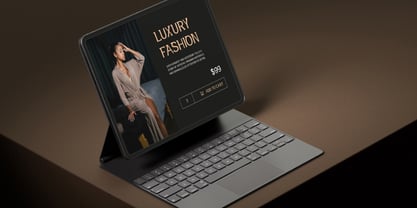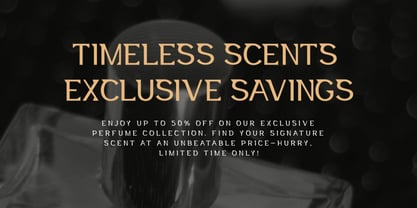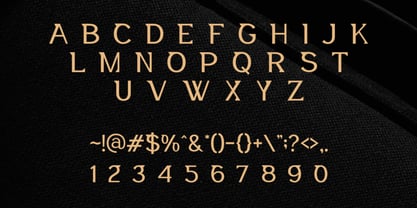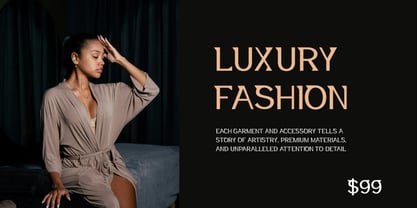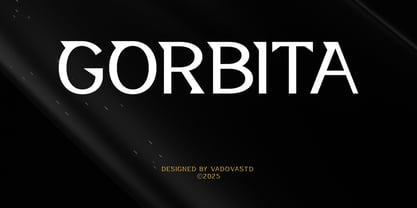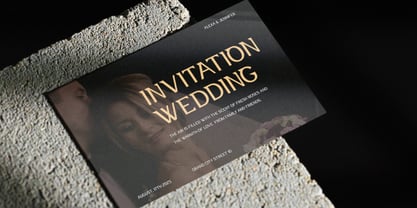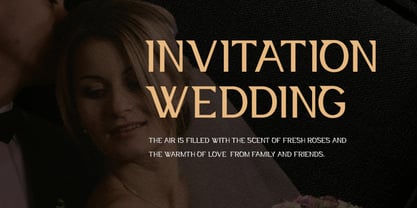
Gorbita
Gorbita is a refined display serif typeface featuring sharp decorative terminals, balanced proportions, and sophisticated letterforms inspired by timeless luxury aesthetics. The font includes uppercase characters, numerals, punctuation, and elegant stylistic details crafted to deliver a premium editorial appearance for high-end visual branding. Its bold yet graceful structure creates strong readability while maintaining an exclusive and fashionable atmosphere suitable for luxury-oriented typography.
Relevance & Use Cases is highly relevant for luxury and premium design projects that require a sophisticated and timeless visual identity. The font works effectively for fashion campaigns, perfume packaging, beauty branding, jewelry advertisements, editorial magazines, luxury hotel branding, boutique logos, cosmetic presentations, wedding stationery, premium social media graphics, artistic posters, and elegant product packaging.
Gorbita